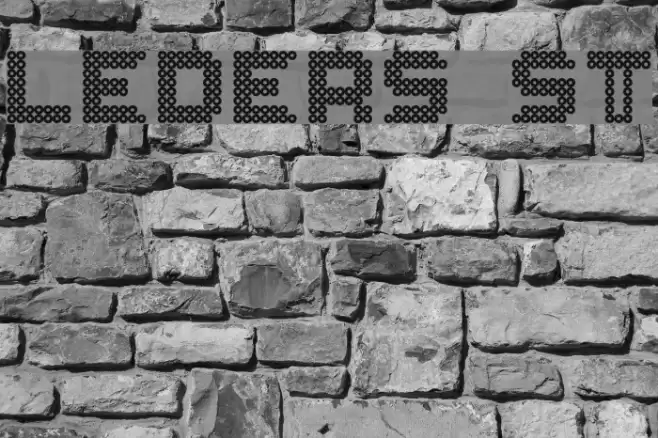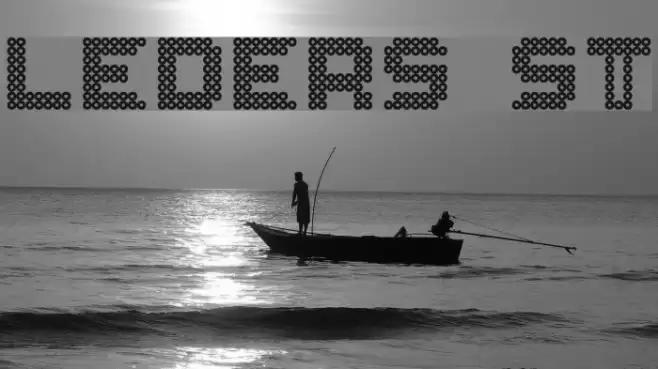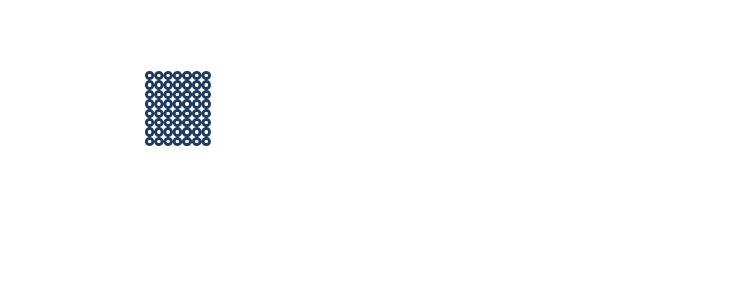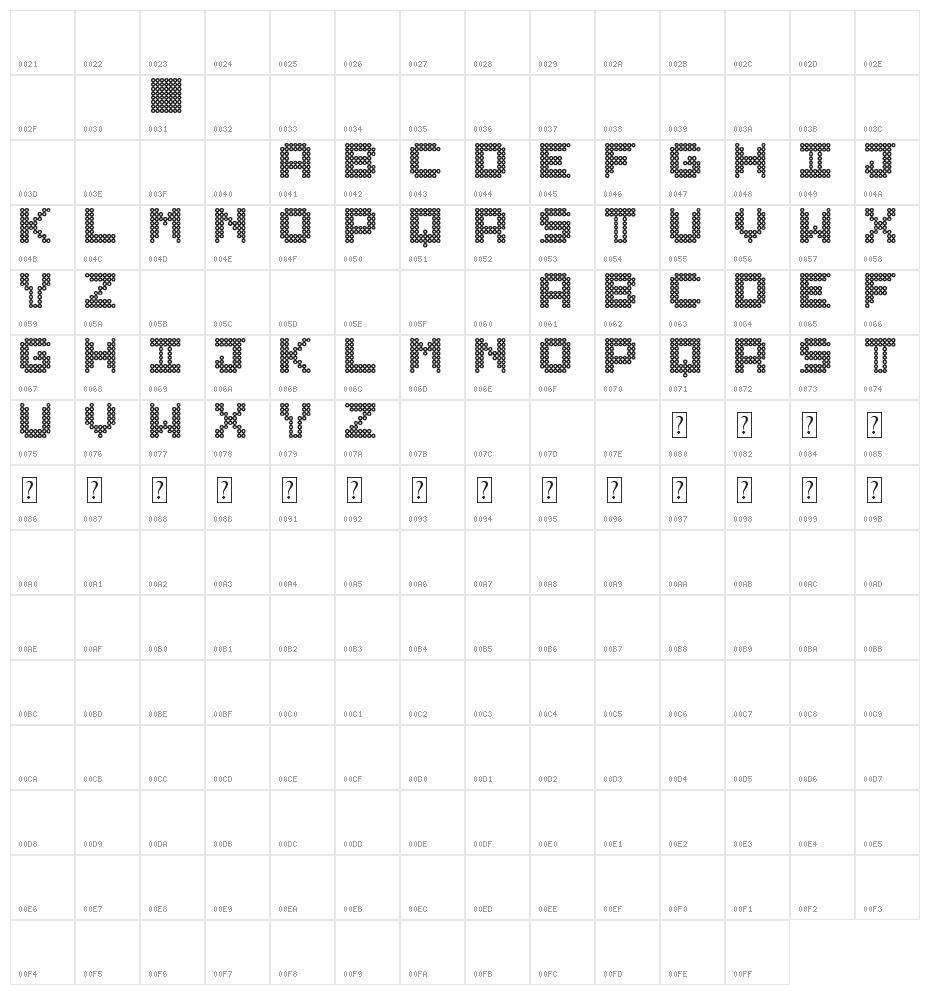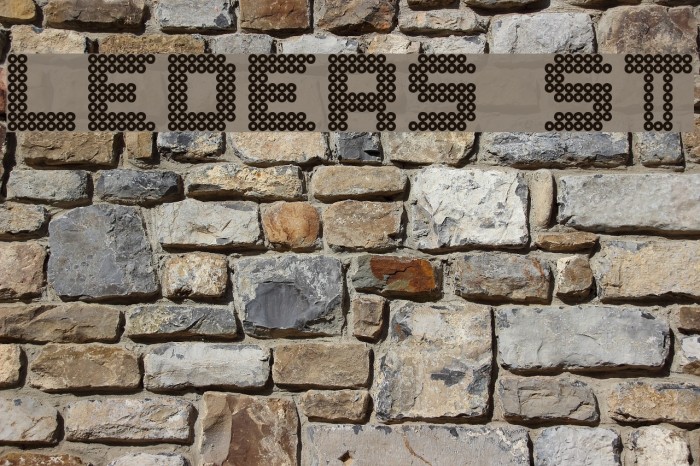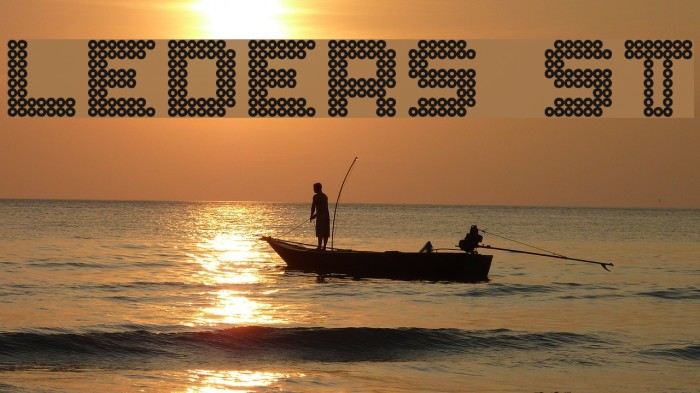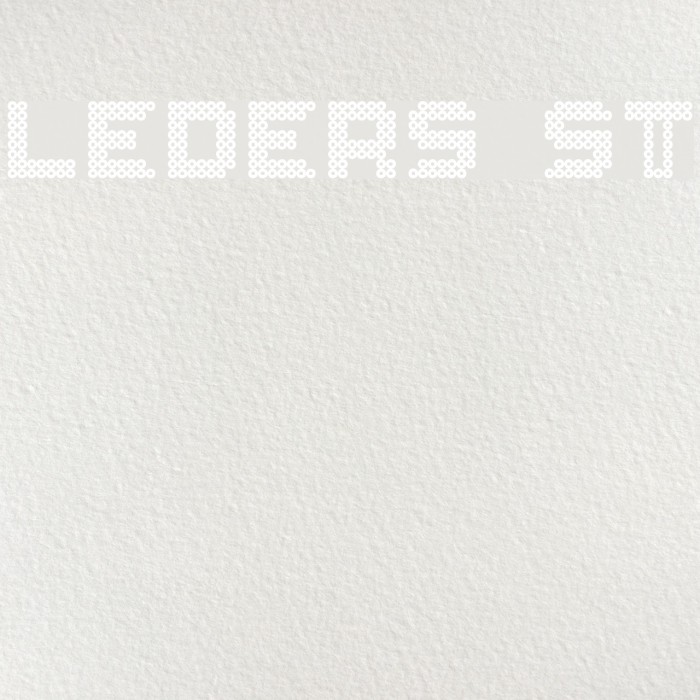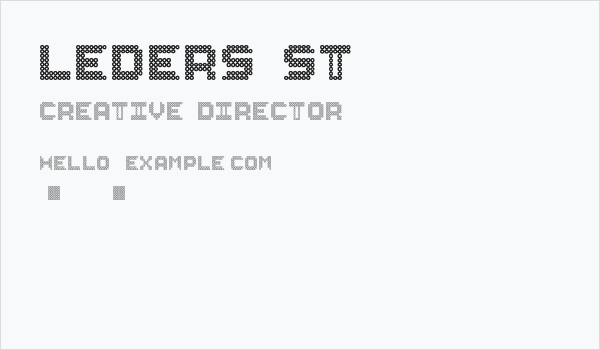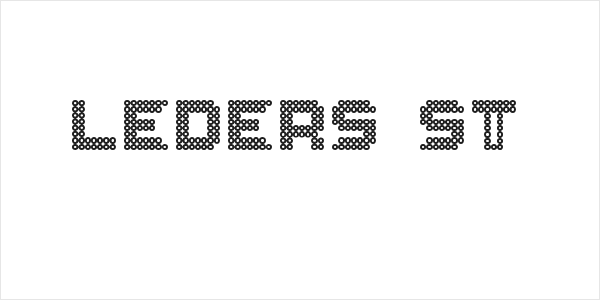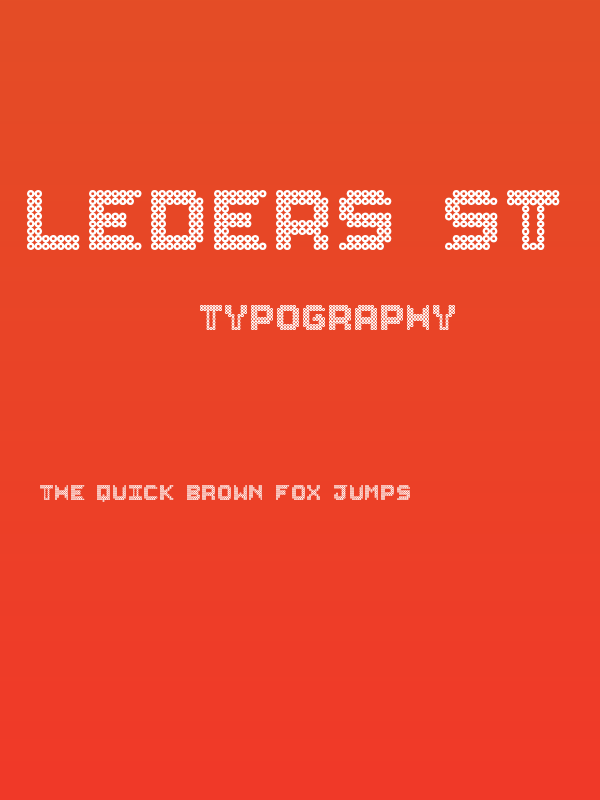
leders St Font
leders St Description
This font features a unique design composed of small, evenly spaced circles forming each character. The geometric pattern gives it a modern and digital feel, reminiscent of LED displays or dot matrix printers. The uppercase letters are bold and distinct, with each character maintaining a consistent height and width, creating a uniform appearance. The absence of lowercase letters and numbers suggests a focus on simplicity and clarity, making it ideal for attention-grabbing headlines or signage. The circular elements provide a playful yet structured aesthetic, suitable for creative projects that require a futuristic or tech-inspired look.
A modern, geometric font composed of circular patterns, ideal for digital and tech-inspired designs from Futuristic fonts.
- Proposed Projects: Perfect for digital displays, tech-themed posters, modern branding, and creative signage.
- Use Case: Headlines, Logos, Signage